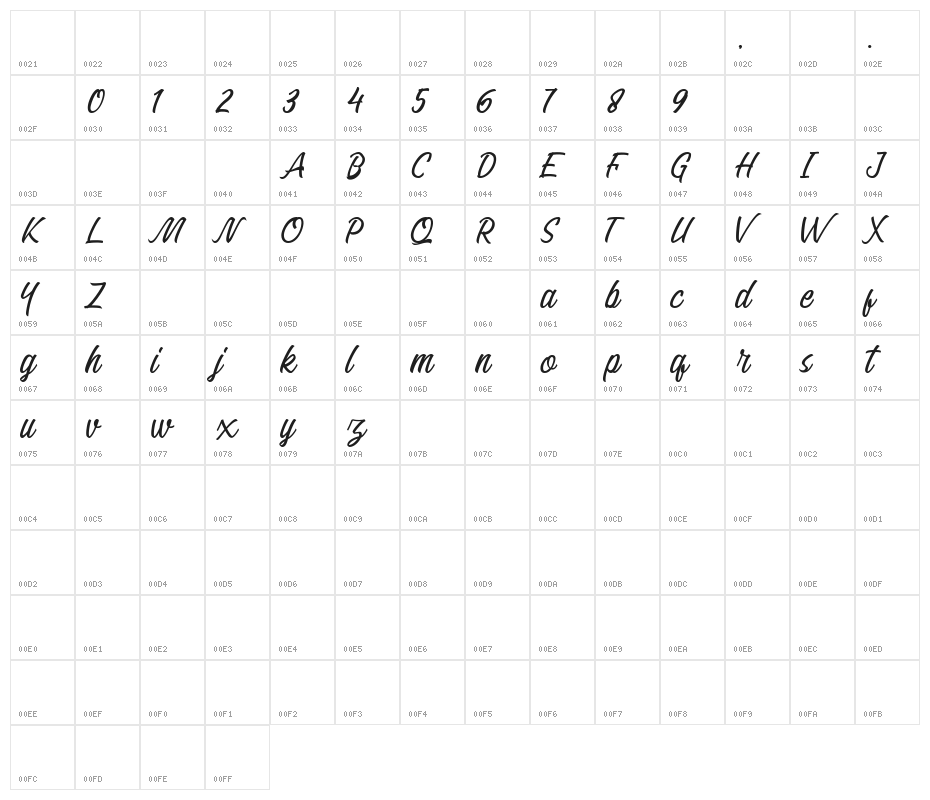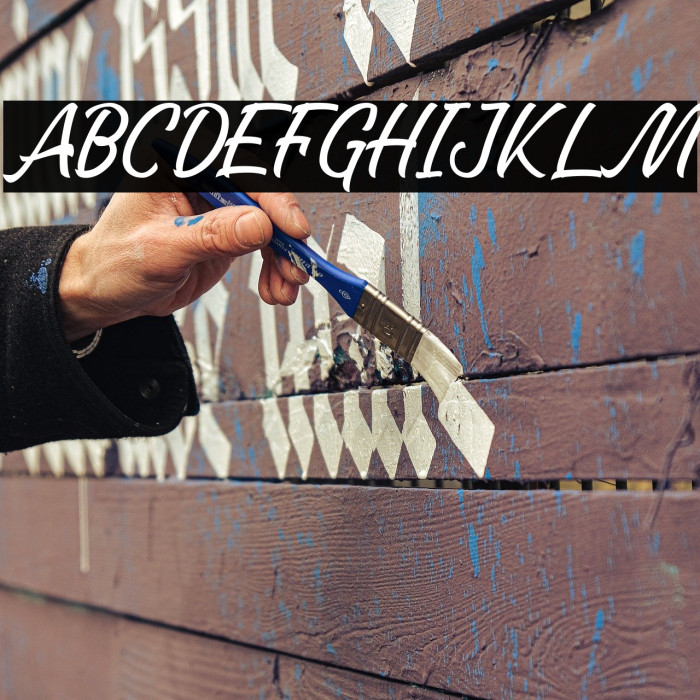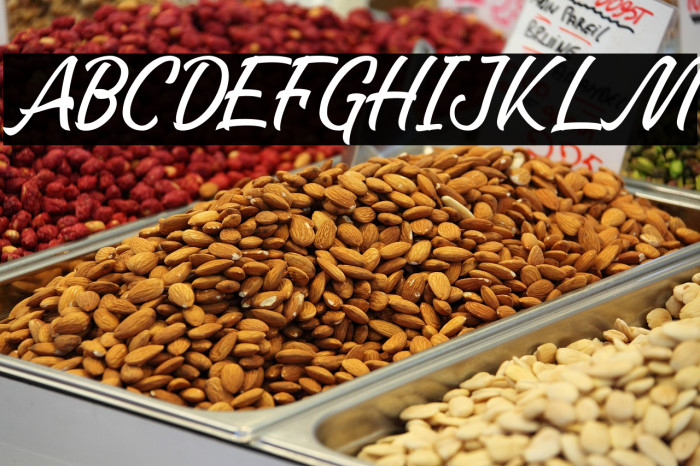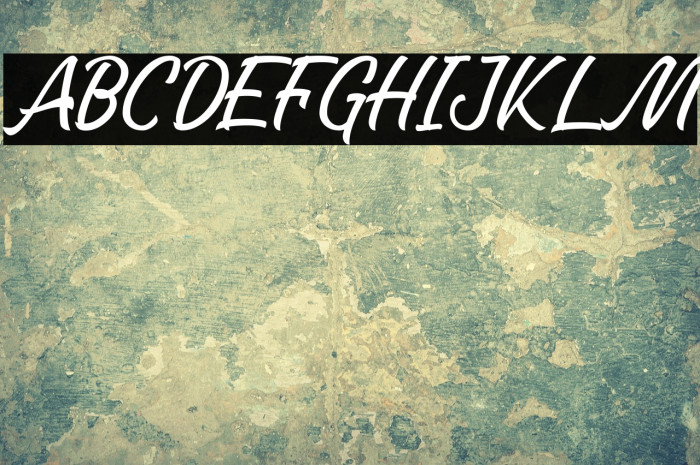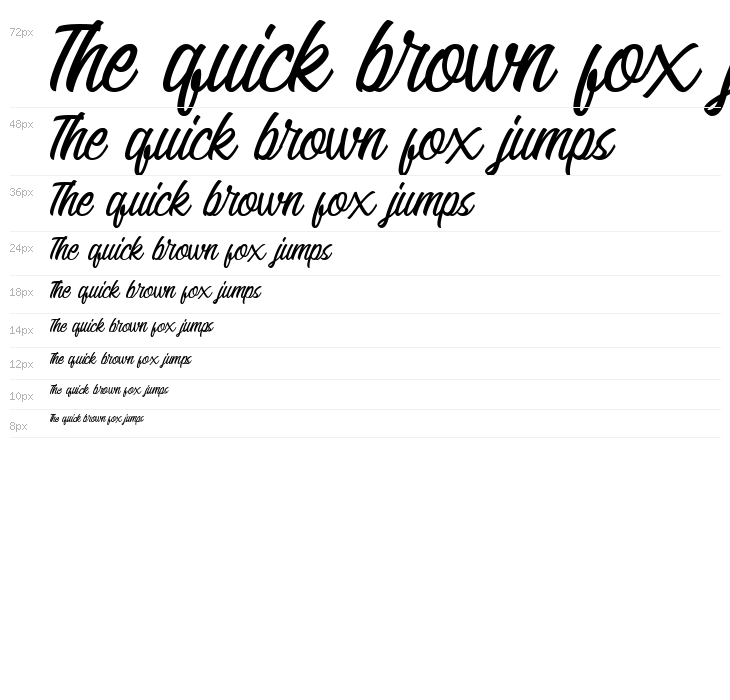
Vertica Font
Vertica Description
This font features a dynamic and flowing script style, characterized by its elegant and cursive letterforms. The uppercase letters are slightly more upright, while the lowercase letters exhibit a more pronounced slant, adding to the fluidity of the design. The strokes are moderately thick, providing a bold appearance without compromising readability. The numerals and special characters maintain the same cursive style, ensuring consistency across all glyphs. This font exudes a sense of sophistication and creativity, making it suitable for a variety of design applications.